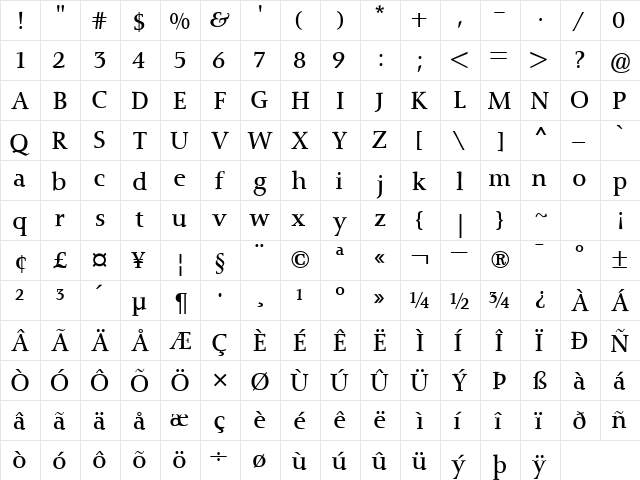
ConquistaSSK Bold
Design Context for ConquistaSSK Typeface
ConquistaSSK takes a measured approach to typography — its balanced proportions and neutral character make it a reliable workhorse for both digital and print work. The heavy weight commands attention and anchors typographic hierarchies.